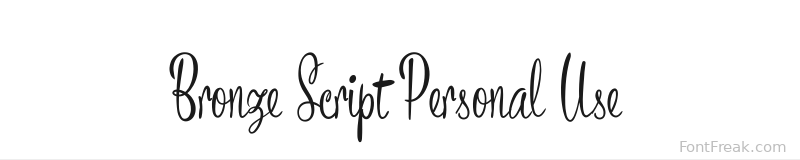
Bronze Script Personal Use
Bronze Script Personal Use is a beautifully crafted script font designed by Mans Greback, falling under the category of handwritten typefaces. This font showcases a graceful and flowing style, characterized by its elegant, cursive letterforms that give it a personal touch. The stroke weight features a soft contrast, with delicate lines that vary from thin to slightly thicker strokes, adding a sense of fluidity and sophistication. The spacing between characters is well-balanced, allowing for easy readability while maintaining a stylish appearance.
This font is particularly well-suited for a variety of creative applications. It shines in wedding invitations, where its romantic flair can evoke an enchanting atmosphere. Additionally, it works beautifully on greeting cards, helping to convey heartfelt messages in a visually appealing manner. For small business owners, Bronze Script can enhance restaurant menus, infusing them with an inviting elegance that entices diners. Moreover, it is an excellent choice for personal branding projects, such as logos and social media graphics, allowing content creators to express their unique style.
Target audiences for this font include graphic designers looking for a charming script that adds personality to their projects, small business owners aiming to create a memorable brand identity, and content creators who want to elevate their visual content with a touch of elegance.